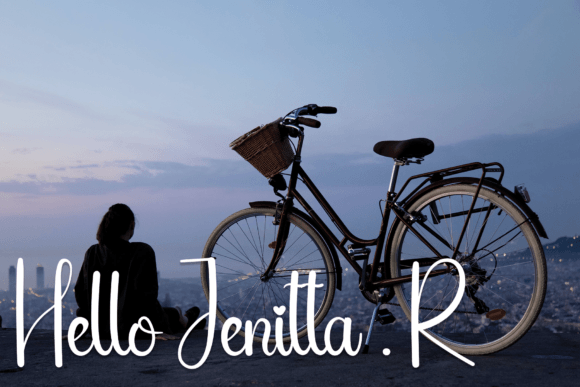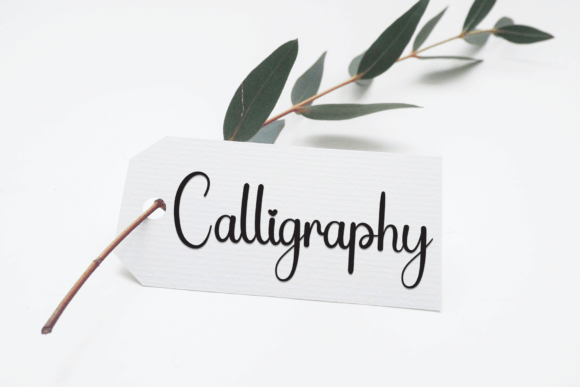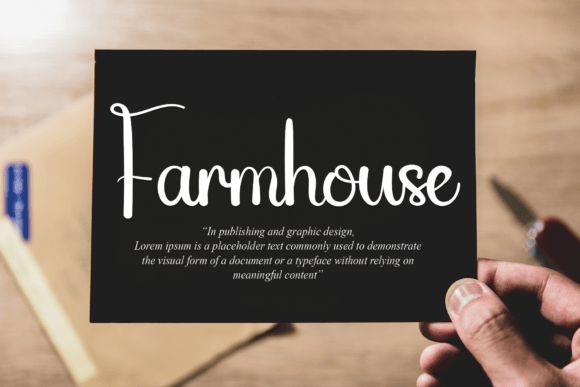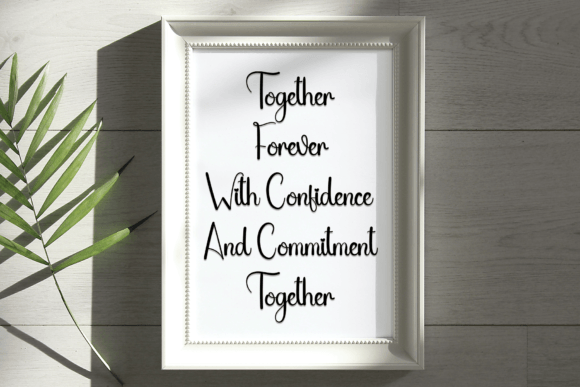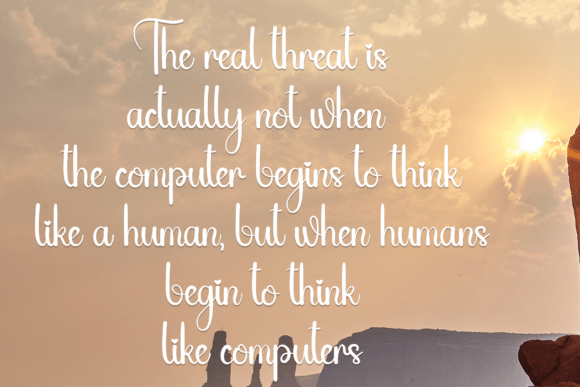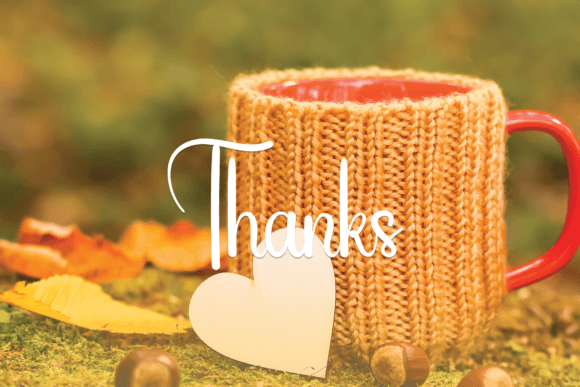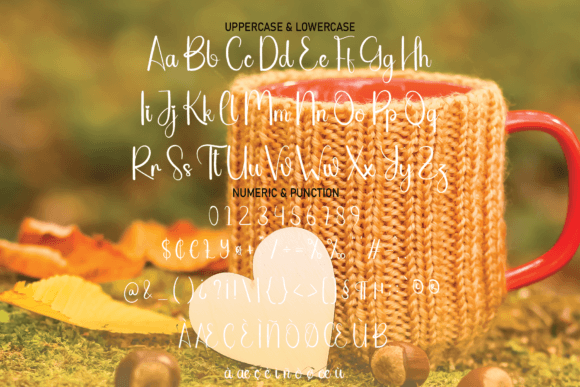
Hello Heart Font
About Hello Heart
Hello Heart brings an elegant and fresh handwritten style that suits a wide variety of creative projects. Its carefully designed characters add a personal, handcrafted feel to your work. This font stands out with its smooth, flowing strokes that capture both  and warmth.
Ideal for Invitations and Wall Displays
This font works perfectly on wedding invitations and event wall displays. Its graceful lines create a welcoming atmosphere, ideal for celebrations or special occasions. With Hello Heart, your invitations will express sincerity and elegance.
A Perfect Choice for Social Media and Branding
Designers love using Hello Heart for social media posts and because it adds charm and uniqueness. The font helps brands build an approachable and creative identity, easily with their audience through its natural handwritten style.
Great for Packaging and Label Designs
Hello Heart shines when applied to product packaging and labels. Its authentic and artistic look boutique and handmade products well. This font enhances the perceived quality and craftsmanship.
Versatile for Various Design Needs
Whether you need a font for photography watermarks, advertising materials, stationery, or product designs, HelloHeart adapts effortlessly. Its readability combined with artistic flair ensures your projects look professional and attractive.
Why Choose HelloHeart?
Combining creativity with timeless elegance, HelloHeart is a versatile font suitable for numerous design projects. It offers designers a perfect balance between a personal touch and modern sophistication, making it a valuable addition to any font collection.